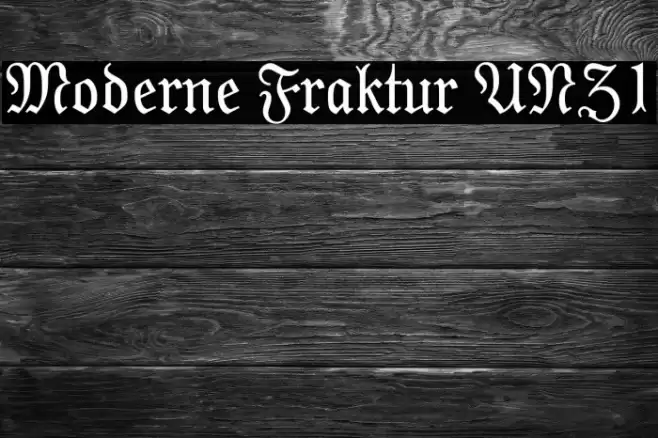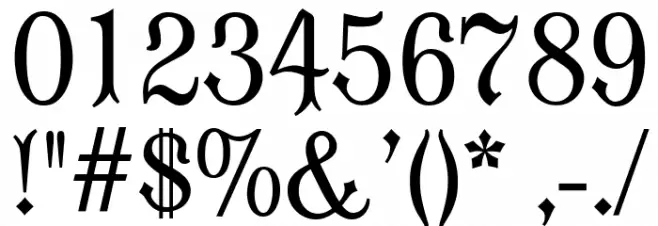
Moderne Fraktur UNZ1 Font
Moderne Fraktur UNZ1 Description
This font features a traditional blackletter style with a modern twist, characterized by its intricate and ornate letterforms. The uppercase letters exhibit a strong, angular structure with decorative flourishes, while the lowercase letters maintain a consistent, flowing design. The numerals are bold and distinct, complementing the overall aesthetic. Special characters are crafted with the same attention to detail, enhancing the font's versatility. The font's design is reminiscent of historical scripts, yet it maintains a contemporary edge, making it suitable for a variety of creative applications.
A modern blackletter font with ornate, angular letterforms and decorative flourishes from Uncategorized fonts.
- Proposed Projects: Ideal for use in branding, posters, book covers, and any project requiring a historical or gothic aesthetic.
- Use Case: Logos, Headlines, Decorative text